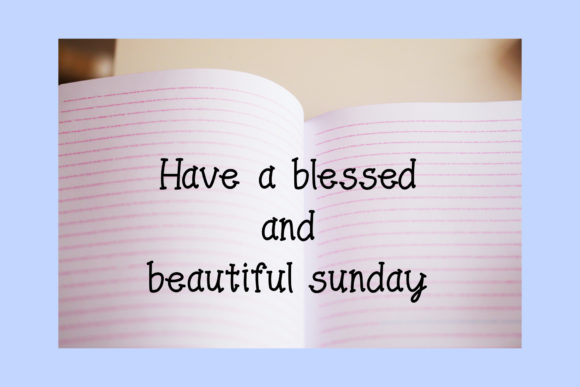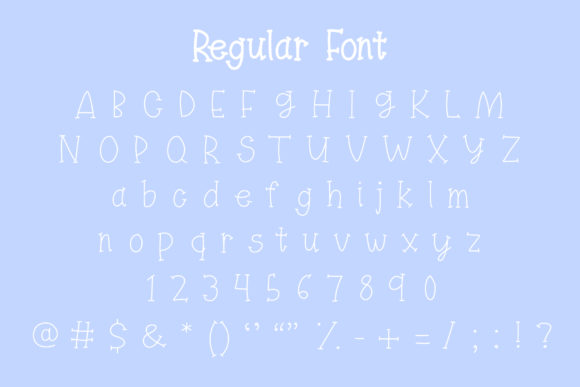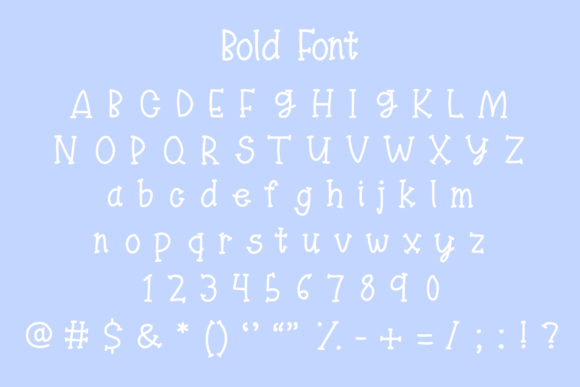
Happy Sunday Font: The Perfect Addition to Your Creative Projects
Are you tired of using the same old fonts for your creative projects? Look no further than the Happy Sunday Font! This cute and casual handwritten font is sure to bring a friendly feel to any design. In this article, we’ll dive into the features and benefits of Happy Sunday Font, and explore how it can elevate your designs and DIY projects.
What is Happy Sunday Font?
Happy Sunday Font is a beautiful, handwritten font that exudes warmth and friendliness. Its casual, approachable style makes it perfect for a wide range of creative projects, from social media graphics and Instagram posts to calligraphy scripts and DIY crafts. With its incredibly friendly feel, Happy Sunday Font is sure to capture the attention of your audience and leave a lasting impression.
Features of Happy Sunday Font
- Cute and Casual Design: Happy Sunday Font features a playful, handwritten design that’s perfect for creating friendly and approachable graphics.
- Handwritten Style: The font’s handwritten style gives it a personal touch, making it ideal for DIY projects, journals, and planners.
- Easy to Read: Despite its casual design, Happy Sunday Font is easy to read, making it perfect for body text and captions.
- Multilingual Support: The font supports multiple languages, making it a great choice for designers and crafters working on international projects.
Benefits of Using Happy Sunday Font
So, why should you choose Happy Sunday Font for your creative projects? Here are just a few benefits of using this amazing font:
- Adds a Personal Touch: Happy Sunday Font’s handwritten style adds a personal touch to your designs, making them stand out from the crowd.
- Perfect for Social Media: The font’s friendly feel makes it perfect for social media graphics, Instagram posts, and other online content.
- Ideal for DIY Projects: Happy Sunday Font is a great choice for DIY projects, such as journals, planners, and crafts.
How to Use Happy Sunday Font
Using Happy Sunday Font is easy! Here are a few tips to get you started:
- Pair it with Other Fonts: Happy Sunday Font pairs well with other fonts, such as sans-serif fonts and script fonts.
- Use it for Headings and Titles: The font’s bold and playful design makes it perfect for headings and titles.
- Add it to Your Social Media Graphics: Happy Sunday Font is a great choice for social media graphics, Instagram posts, and other online content.
- Use it for DIY Projects: The font is perfect for DIY projects, such as journals, planners, and crafts.
In conclusion, Happy Sunday Font is a beautiful, handwritten font that’s perfect for adding a friendly feel to your creative projects. With its cute and casual design, easy readability, and multilingual support, this font is sure to become a staple in your design toolkit. Whether you’re a designer, crafter, or DIY enthusiast, Happy Sunday Font is a great choice for any project. So why wait? Download Happy Sunday Font today and start creating amazing graphics and DIY projects!